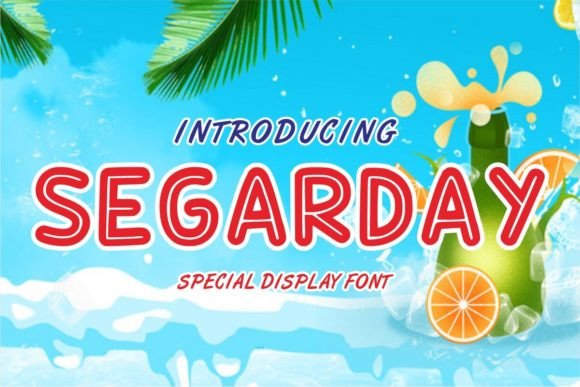
Introducing Segarday Font: A Timeless Creation for Your Artistic Endeavors
In the realm of typography, where letters dance and characters come alive, Segarday Font emerges as a radiant beacon of creativity. This exquisite display font, crafted with meticulous care by the visionary Im.design.art, is an artistic masterpiece that will transform your designs into captivating visual symphonies.
Segarday Font is not merely a collection of letters; it's an artistic toolbox that empowers you to unleash your imagination and create designs that resonate with your audience. Whether you're a seasoned graphic designer or just starting your creative journey, Segarday Font will become your trusted companion, guiding you towards design excellence.
Immerse yourself in the world of Segarday Font and discover a universe of creative possibilities. Let your imagination soar as you explore the endless applications of this versatile font. Create logos that exude elegance and sophistication, design social media posts that pop with personality, or craft invitations that capture the essence of joy and celebration.
With Segarday Font, you'll never be confined by creative boundaries. Its playful and vibrant nature lends itself effortlessly to a myriad of design projects, effortlessly enhancing the visual appeal of any concept. Whether you're creating posters that demand attention, designing eye-catching flyers that leave a lasting impression, or crafting digital content that captivates and engages, Segarday Font will be your steadfast ally.
So, embark on a creative odyssey with Segarday Font as your guide. Let your designs blossom into masterpieces, and watch as your creations captivate and inspire those who behold them.